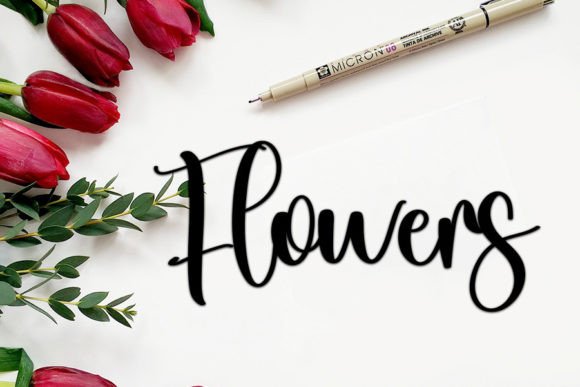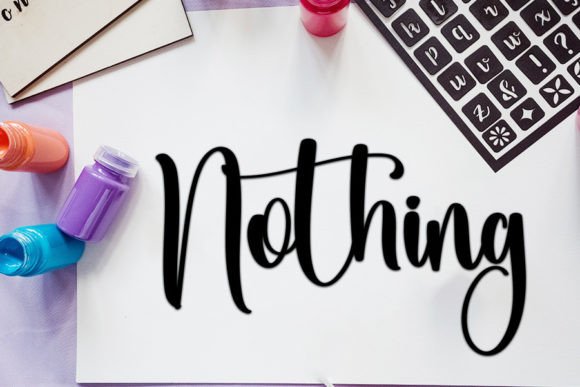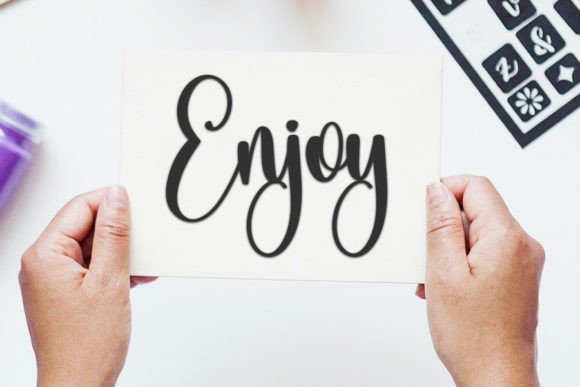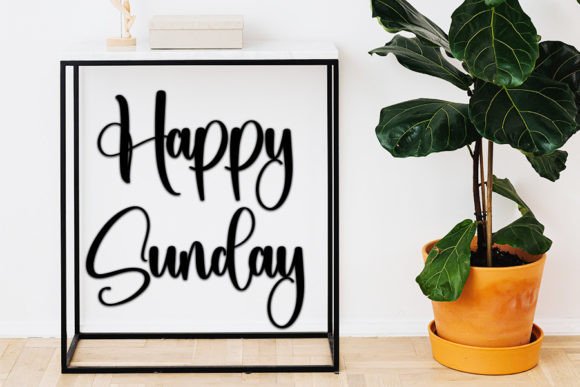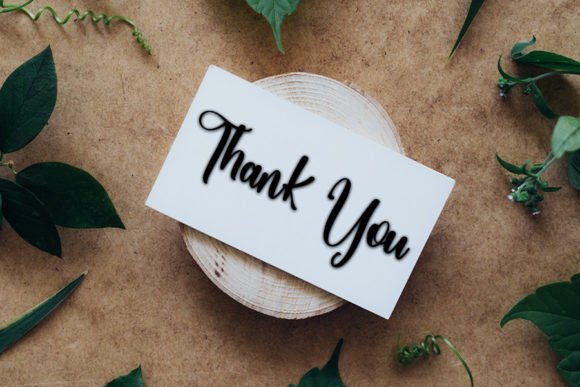
The Elusive Perfect Font: My Encounter with Dolles
As a designer, I’ve had my fair share of late nights scouring font libraries, searching for that one perfect typeface to elevate a project. I recall working on a wedding invitation design, determined to capture the elegance and whimsy of the couple’s special day. The challenge? Finding a font that exuded sophistication without feeling too stuffy. That’s when I stumbled upon Dolles, a trendy handwritten font that has since become a staple in my design toolkit.
An Honest Review of Dolles
- ✨ Elegant and Classy: Dolles brings a touch of timeless sophistication to any design project.
- ✅ Contemporary Atmosphere: Its modern vibe ensures your designs feel fresh and current.
- 💫 Impeccable Form: The font’s well-crafted letterforms make it a joy to work with.
- 🌈 Versatility: Suitable for a wide range of projects, from wedding invites to branding and advertising.
While Dolles is an excellent font, there are a few things to keep in mind:
- ⚠️ Legibility at Small Sizes: Like many handwritten fonts, Dolles may lose some legibility when scaled down too far.
- 🤔 Overuse of Swashes: Be cautious not to overdo it with the swashes and stylistic alternates, as they can make the text harder to read.
The Story Behind Dolles
Dolles was inspired by the timeless beauty of classic calligraphy, reimagined with a modern twist. The designer aimed to create a font that captures the essence of elegant handwriting while making it accessible and versatile for contemporary design projects. The result is a font that feels both sophisticated and approachable.
Q: Is Dolles suitable for body text?
A: While Dolles is stunning for headings and titles, its legibility at smaller sizes might make it less ideal for extensive body text. Consider using it for headings and a complementary font for the body.
Q: Does Dolles support multiple languages?
A: Many modern fonts, including Dolles, offer extended language support. Check the font specifications or contact the designer for detailed information on language support.